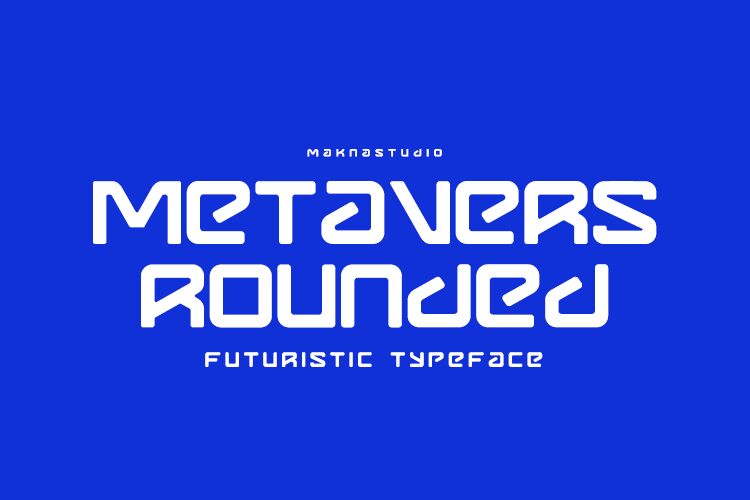
Metavers Rounded
Metavers Rounded, a font from the Metavers family designed by MaknaStudio, stands out with its expanded width and sleek curvature that captures the essence of a futuristic aesthetic. Its bold, rounded letters convey a sense of innovation and modernity, making it an exceptional choice for projects that aim to be at the forefront of design trends. The font's display type classification ensures that it makes a striking impact when used in headlines, logos, or any visual medium where distinctiveness is key.
The style of Metavers Rounded is not just contemporary; it’s visionary—invoking thoughts of advanced technology and digital sophistication. This font's clean lines and generous spacing speak to a forward-thinking approach to typography. Ideal for branding endeavors, tech startups, or any creative work seeking to project an image of cutting-edge elegance, Metavers Rounded promises to deliver your message with confidence and clarity in today's fast-paced digital landscape.